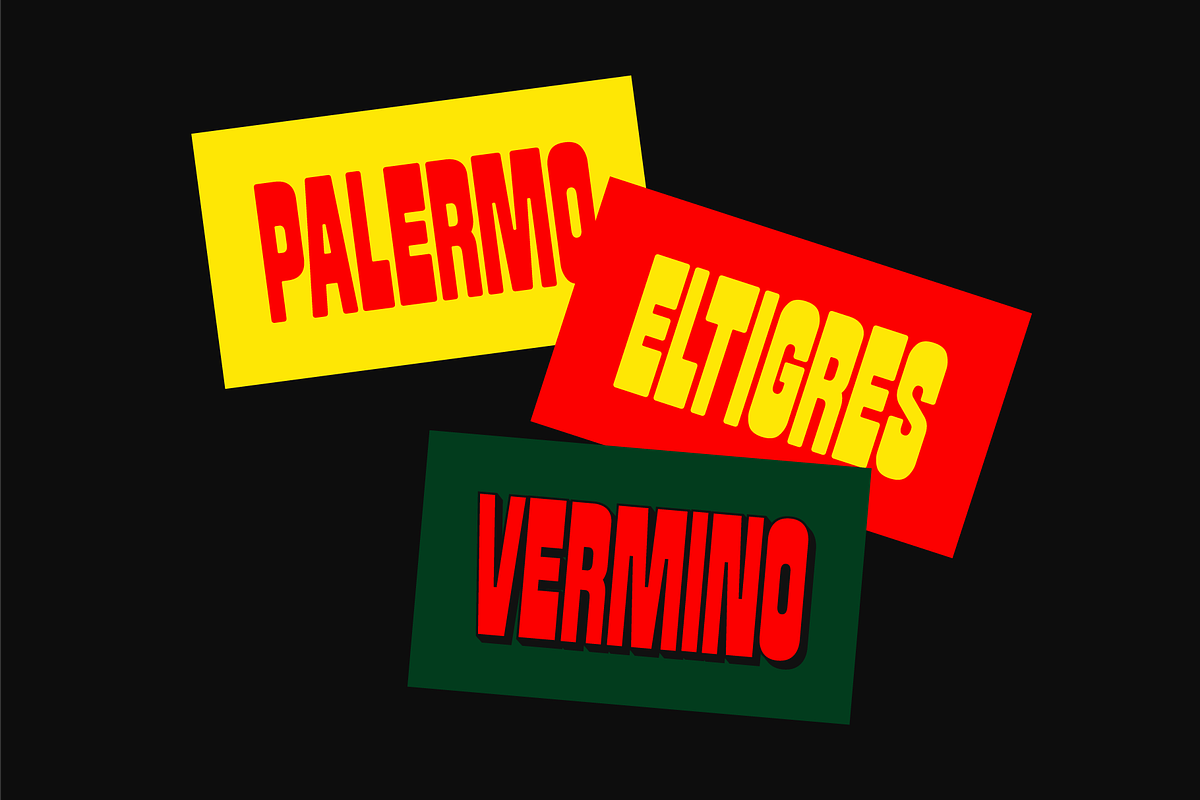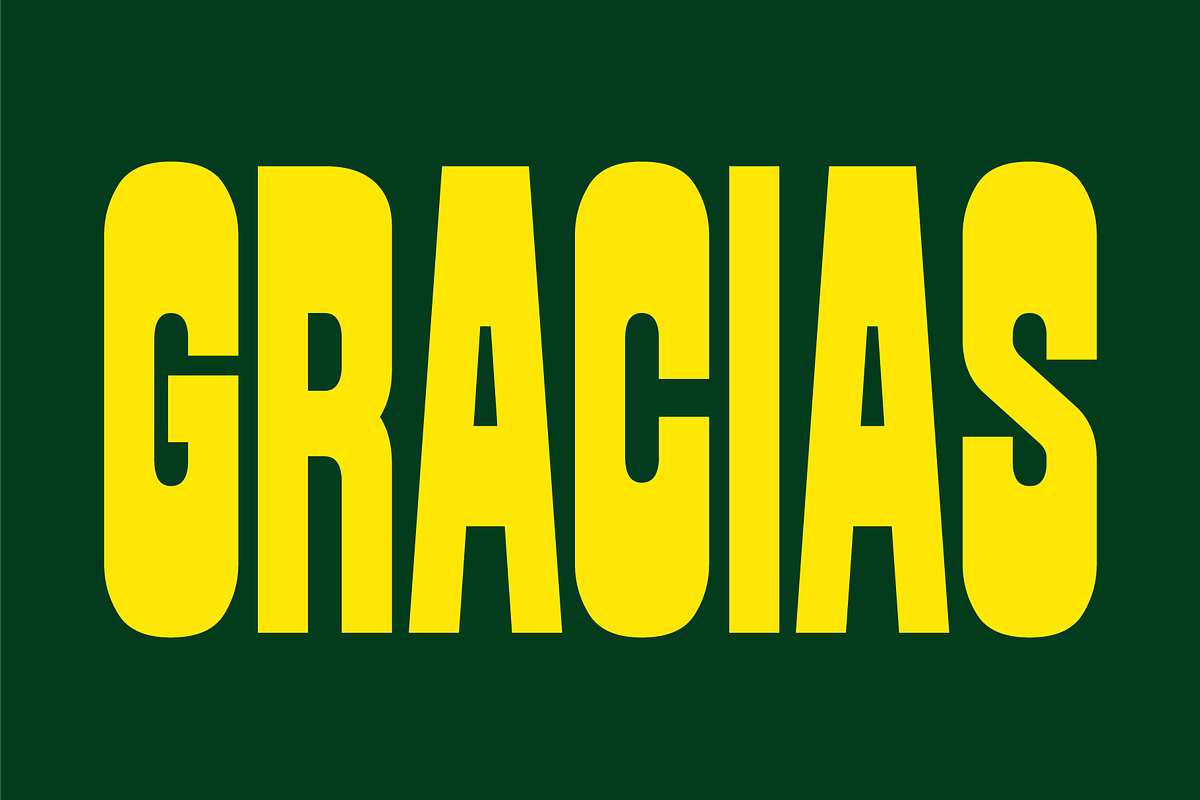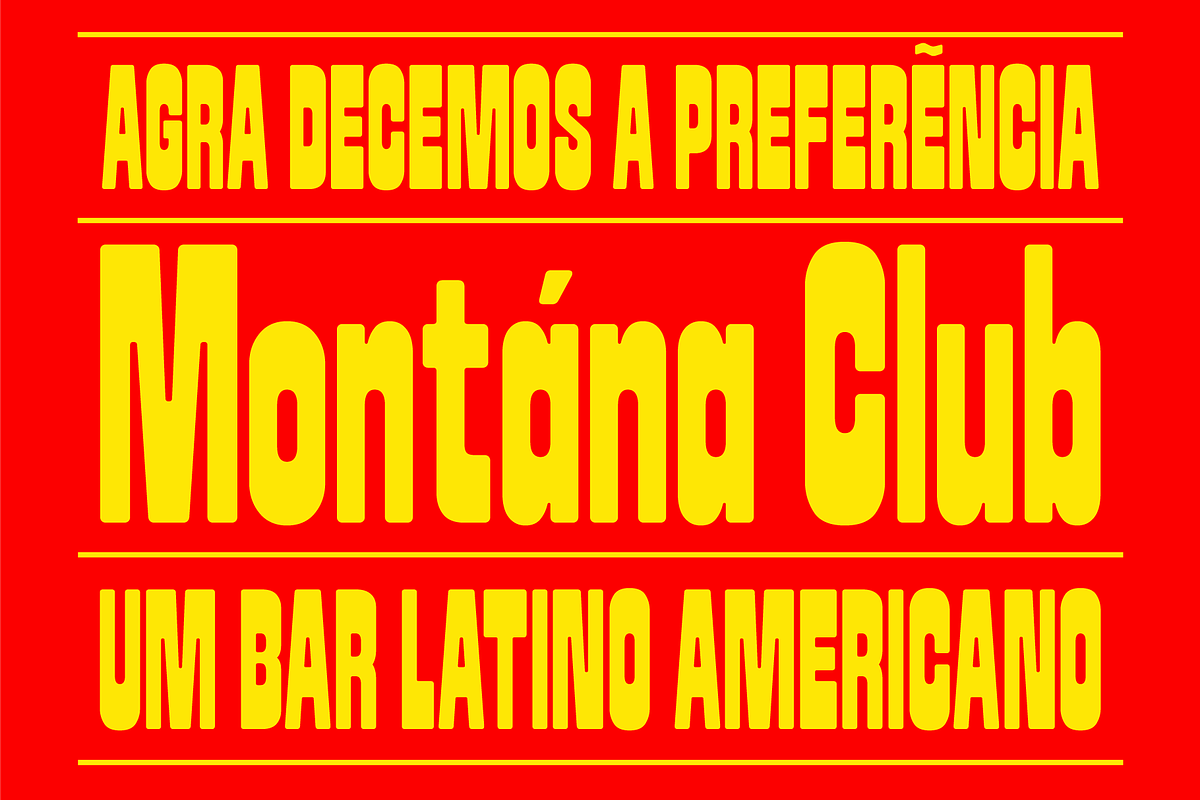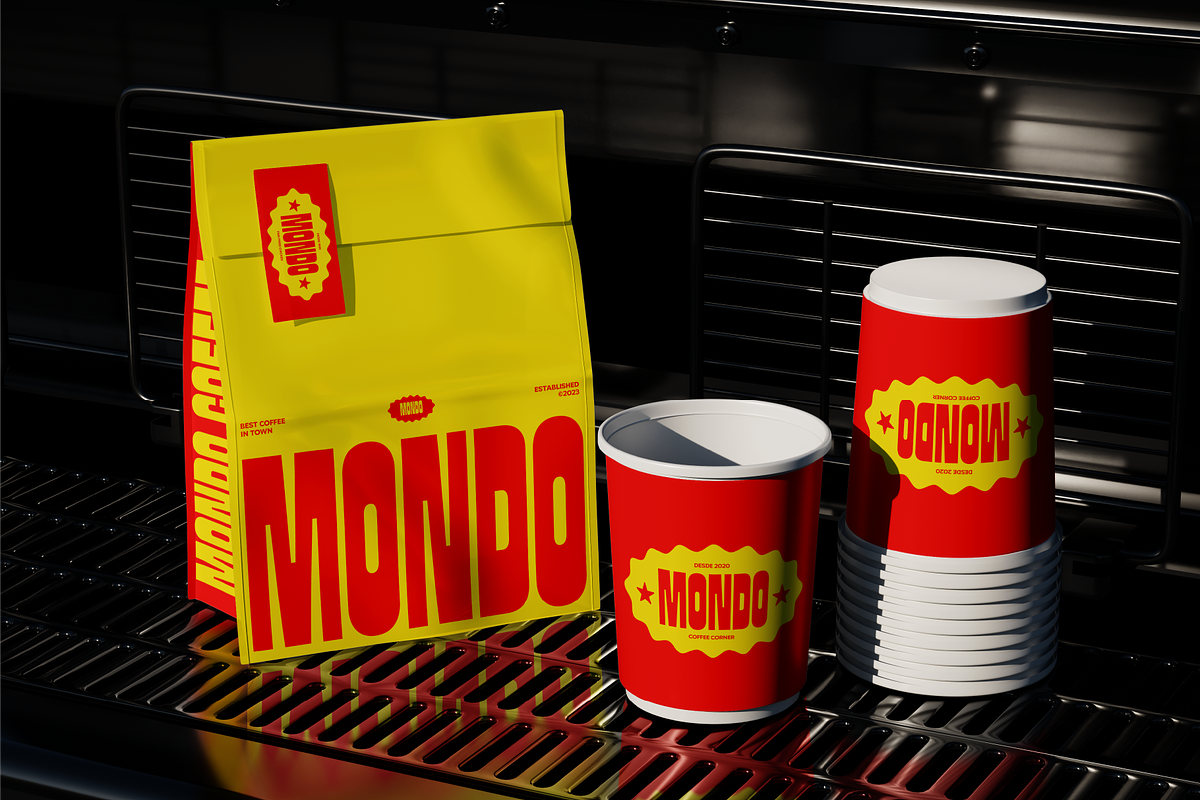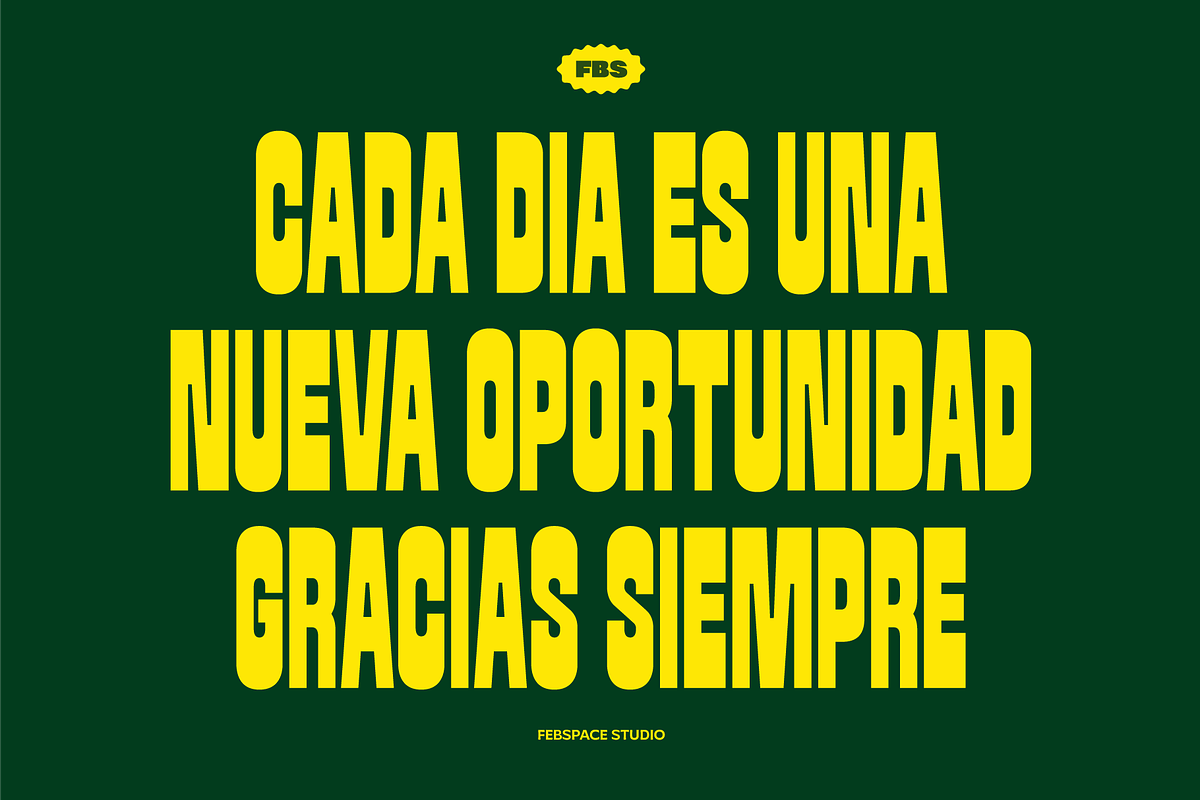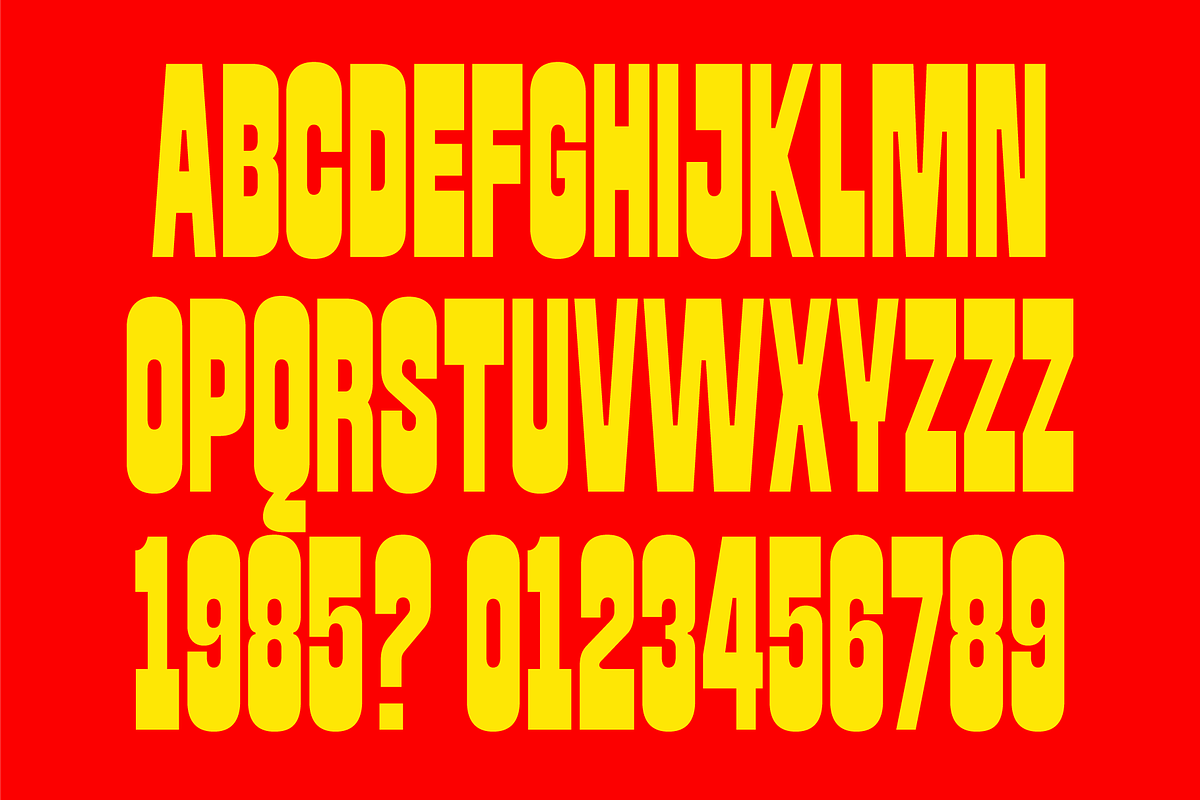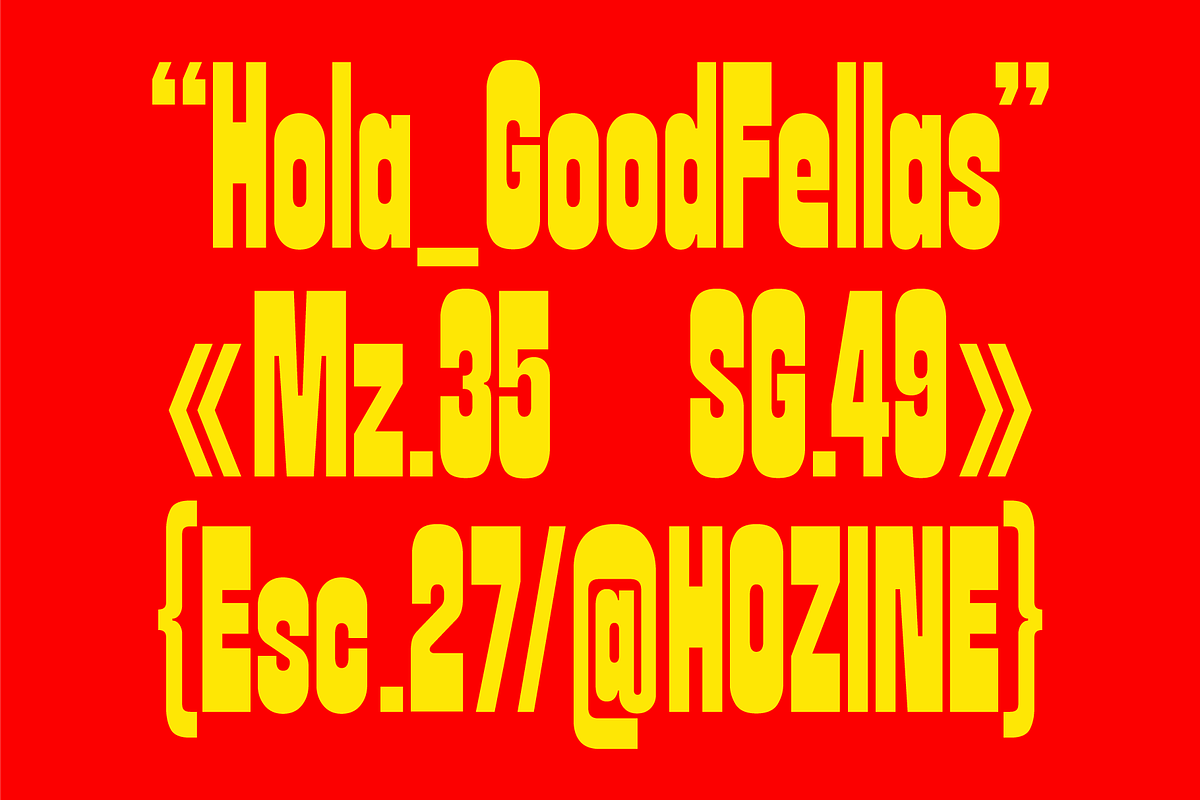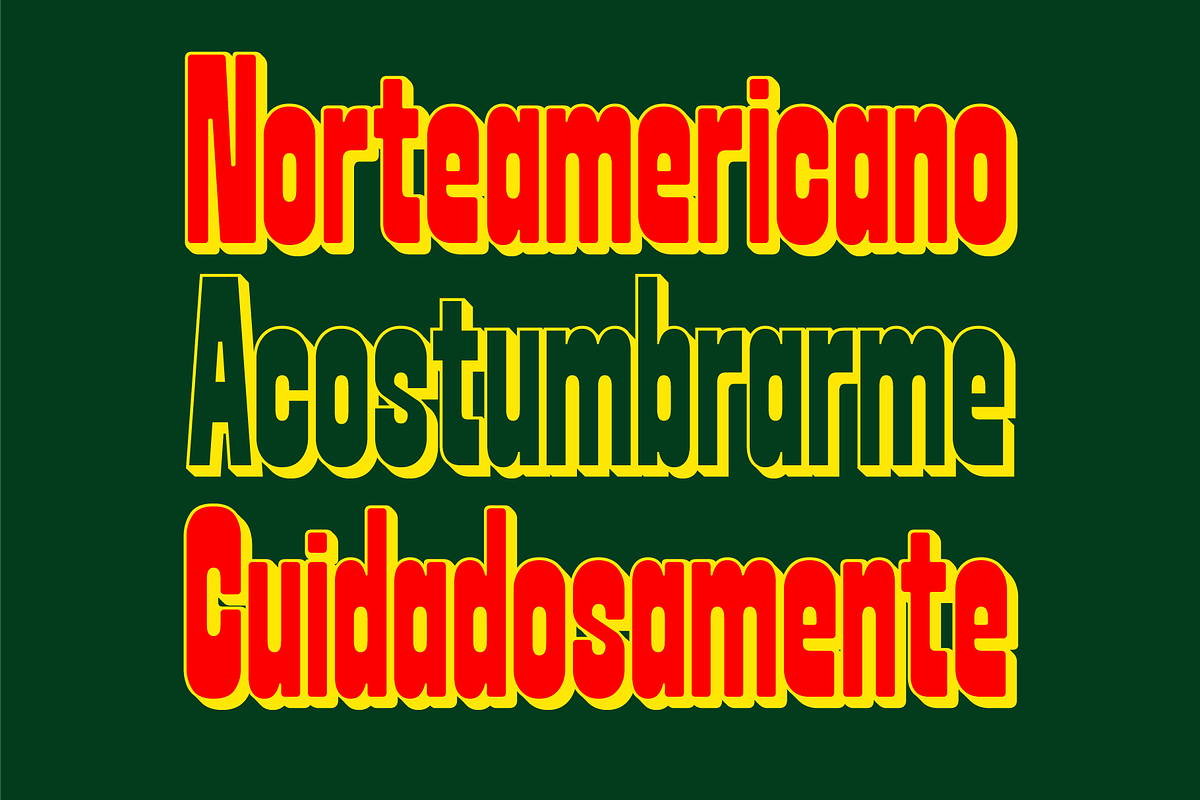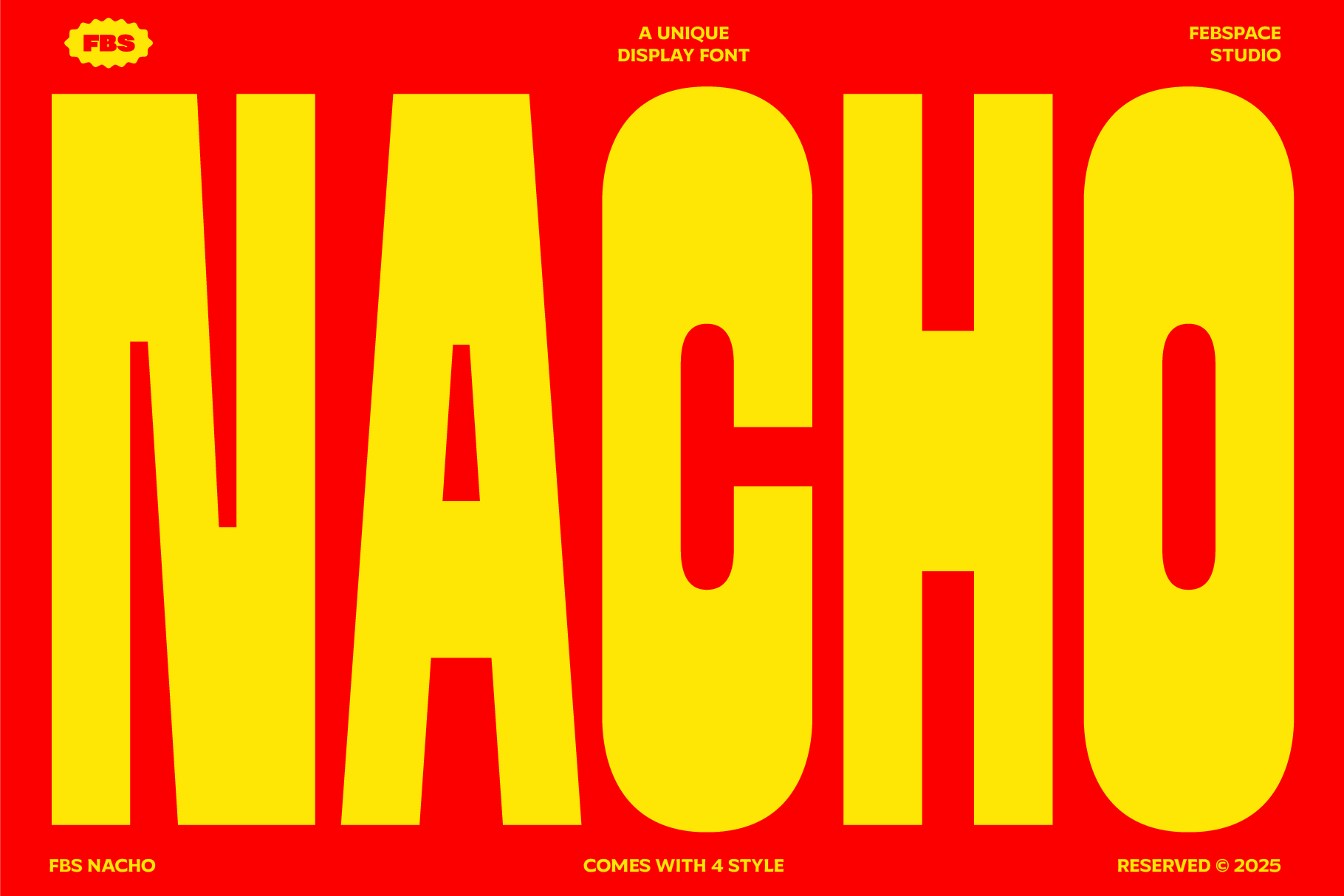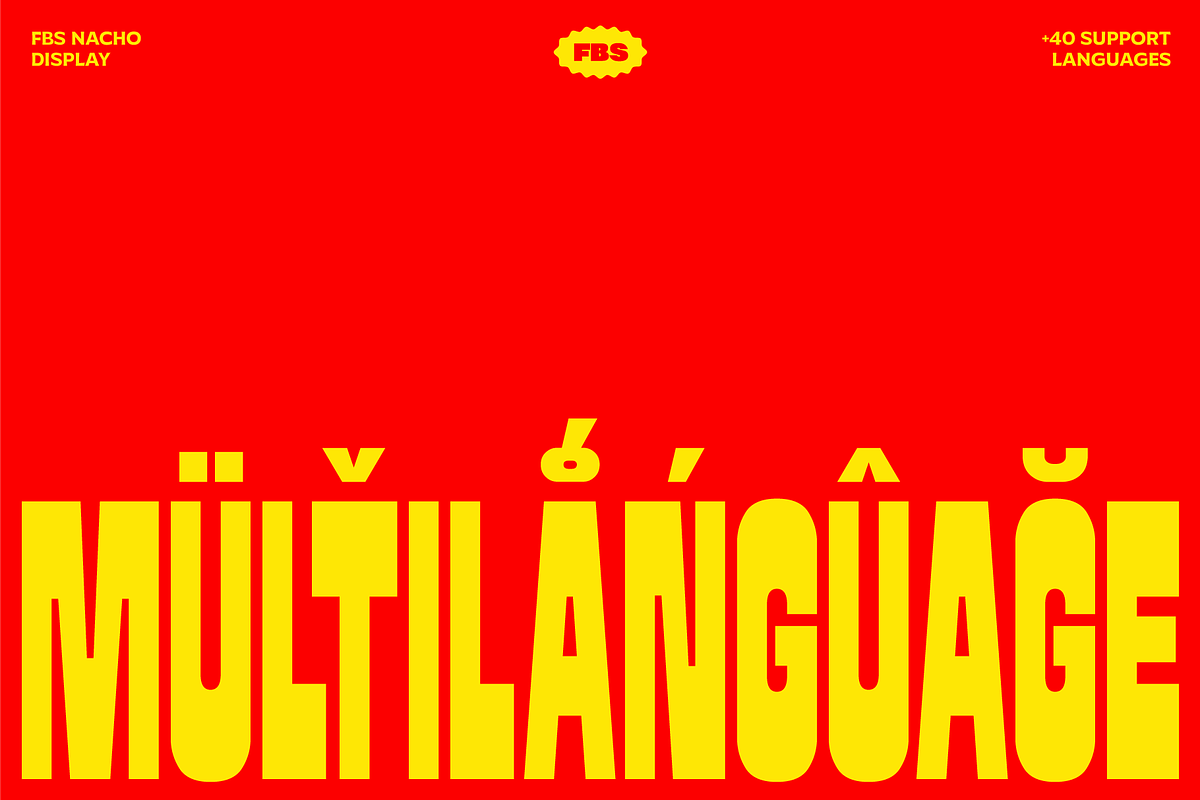
FBS Nacho Typeface
Say hello to FBS Nacho — a chunky, bold display typeface with a whole lot of attitude! Designed for impact, this font comes in four flavorful styles: Regular, Soft Round, Regular Shadow and Soft Shadow. Whether you’re crafting posters, merch, or anything that needs to pop, FBS Nacho brings the bold with a minimalist twist. From clean cuts to playful curvesand cool shadows, this font’s got the toppings you need to spice up your design.